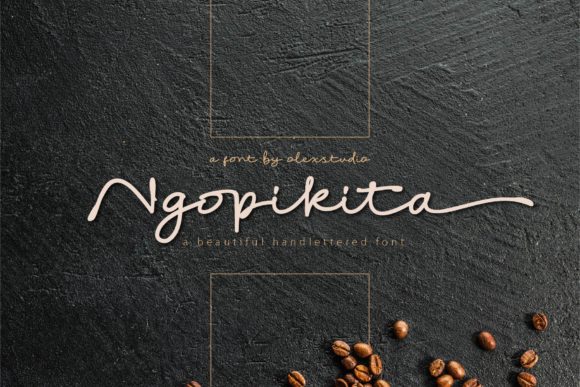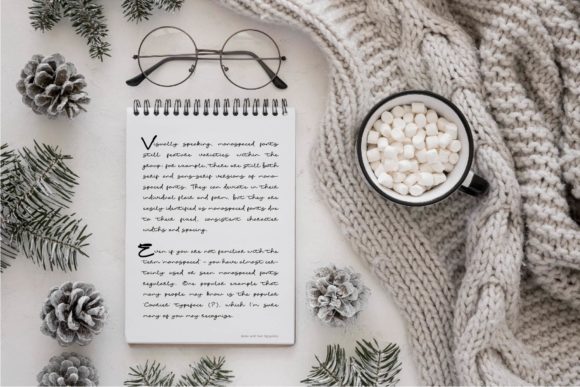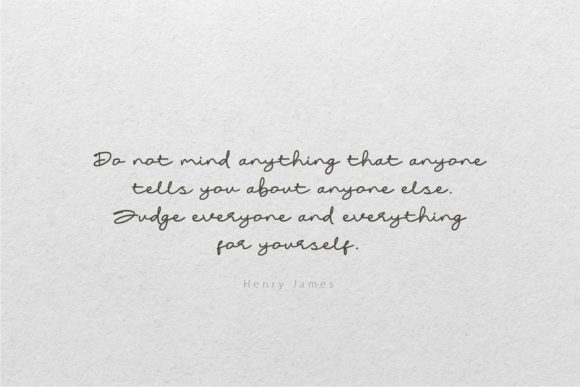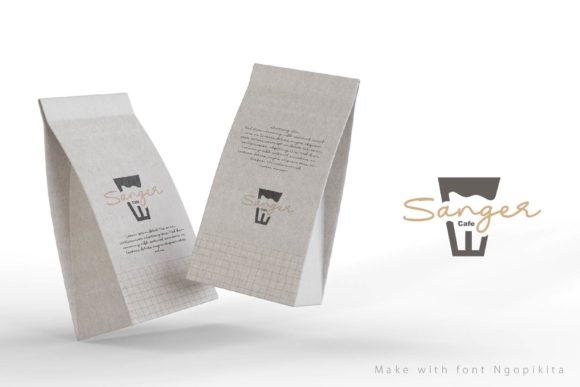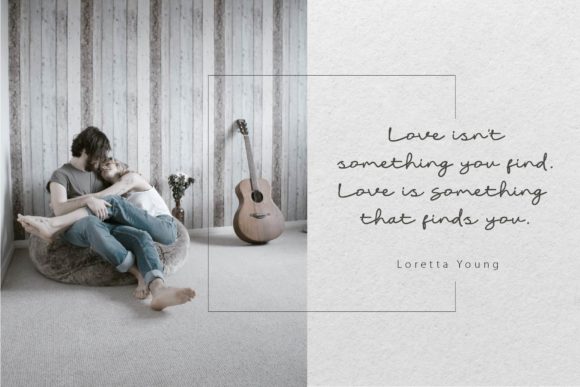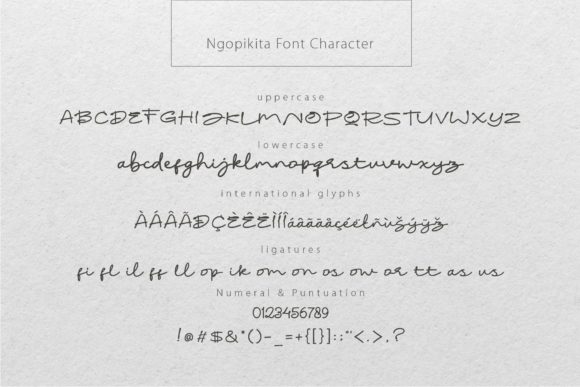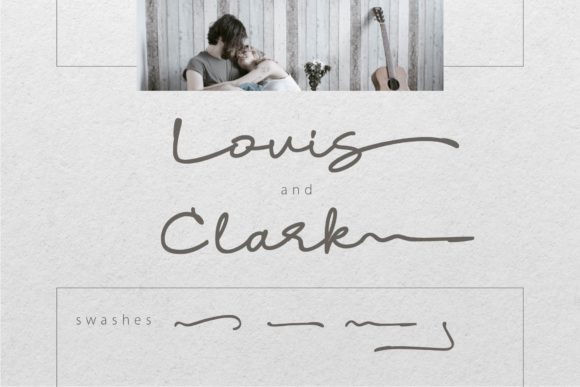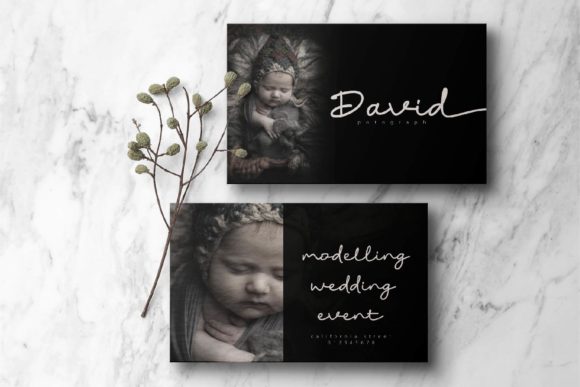
Ngopikita Font
Ngopikita is a minimal and flowing handwritten font that adds a touch of elegance and authenticity to your designs. With its smooth and fluid letterforms, this font brings a sense of simplicity and sophistication to your creative projects. Whether you’re designing logos, branding materials, invitations, posters, or any other visual content, Ngopikita enhances your ideas and helps you create truly remarkable designs.
The clean and uncluttered nature of Ngopikita makes it a versatile font for various design styles. Its minimalistic aesthetic allows your message to take center stage while still adding a touch of visual interest. Whether you’re looking to create a modern and contemporary design or a more timeless and classic look, Ngopikita adapts seamlessly to your creative vision.
One of the standout features of Ngopikita is its PUA encoded glyphs, which provide you with easy access to a wide range of alternate characters and swashes. This means you can effortlessly add stylistic variations and embellishments to your text, allowing for further customization and personalization of your designs. The versatility of the glyphs enables you to create unique typographic compositions that perfectly align with your creative intentions.
Ngopikita is well-suited for both digital and print designs. Its smooth and flowing strokes translate beautifully across various media, ensuring a consistent and visually pleasing result. Whether you’re designing for online platforms, such as websites and social media posts, or preparing materials for print, such as business cards or stationery, Ngopikita maintains its elegant appearance and readability.
In summary, Ngopikita is a minimal and flowing handwritten font that adds a touch of elegance and authenticity to your designs. With its clean and uncluttered aesthetic, it allows your message to shine while still providing visual interest. The PUA encoded glyphs offer a wide range of alternate characters and swashes, enabling you to customize your designs effortlessly. Embrace Ngopikita to enhance your ideas and create spectacular designs that captivate your audience.